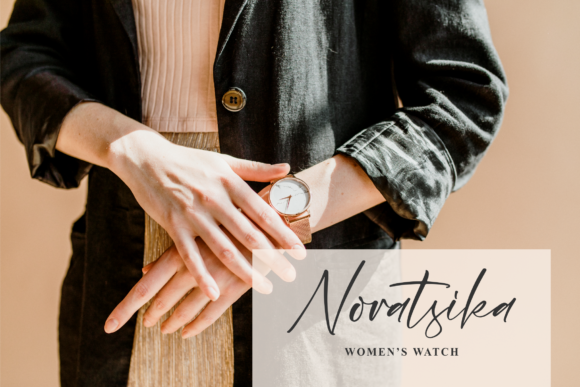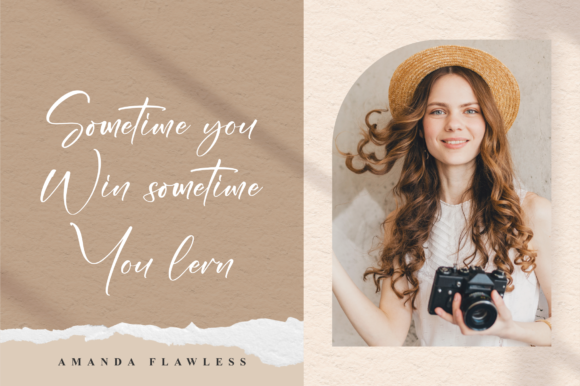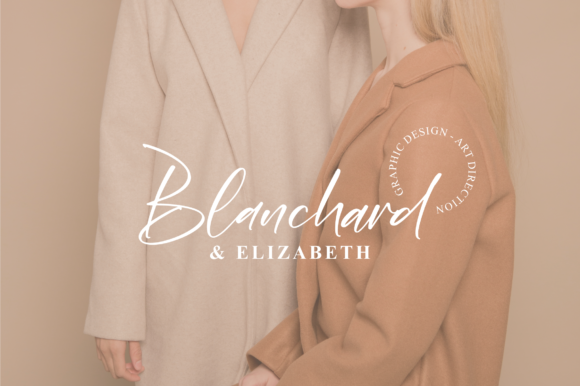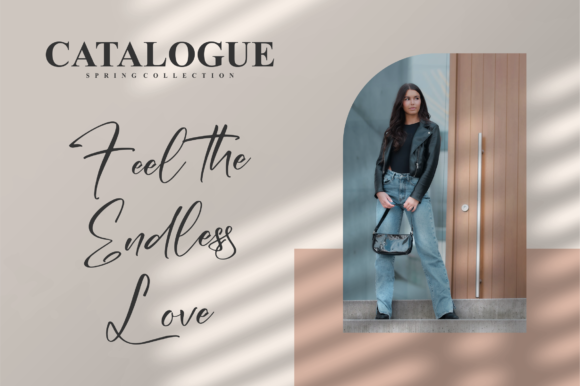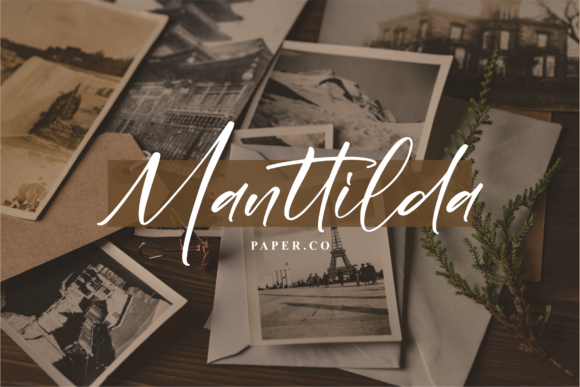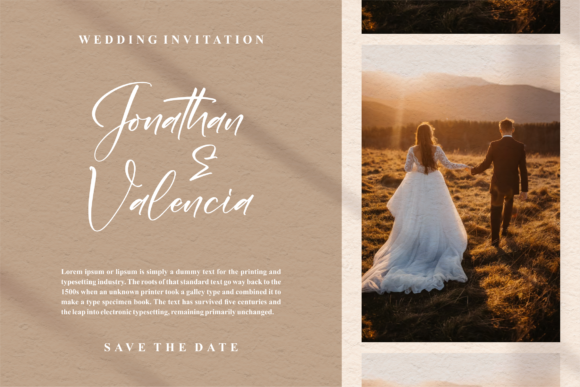
The Perfect Script: Unleashing the Power of Aghnisty Font
Have you ever stared at a blank canvas, feeling the urge to create something beautiful and unique? The blank page can be both a blessing and a curse, but it’s in these moments that our imagination runs wild, and our creativity soars. For designers, the search for the perfect font can be a daunting task, but what if you stumbled upon one that makes your projects truly stand out?
Enter Aghnisty Font, a trendy script font designed to elevate your designs and leave a lasting impression. Suitable for logos, branding projects, homeware designs, and more, Aghnisty Font is the perfect addition to any creative project. With its PUA encoded glyphs and swashes, you can unlock a world of possibilities and add a touch of elegance to your work. Whether you’re a seasoned designer or just starting out, Aghnisty Font is a valuable tool that’s sure to take your projects to the next level.
Aghnisty Font Key Features
- Unique Characteristics: Aghnisty Font features a unique, handwritten style with a mix of elegant and rustic elements, making it perfect for creative and artistic projects.
- Character Set: The font includes a wide range of characters, including Latin, Cyrillic, and Greek alphabets, as well as punctuation and special characters.
- Font Style: The font has a calligraphic feel, with fluid connections between letters and a mix of rounded and pointed shapes, creating a beautiful, handwritten look.
Aghnisty Font Review
I recently had the chance to work with the Aghnisty font, and I must say it’s an interesting choice. ✨ One of the things that really stands out is the unique blend of modern and vintage elements in the design. The font’s eclectic feel can add a touch of sophistication to any project.
Another aspect that I appreciate is the font’s versatility. ✨ It can be used in a wide range of contexts, from headlines to body text, and still maintain its visual appeal. The font’s bold weight is particularly striking, making it perfect for titles and headings.
- ⚠️ The font’s readability can be affected by the size and spacing of the text. At smaller sizes, the font’s intricacies can become difficult to distinguish, making it hard to read.
- ⚠️ The font’s italic and bold styles can sometimes feel inconsistent, which may be a concern for designers who value precision in their typography.
Overall, I think the Aghnisty font is a solid choice for designers who want to add a touch of uniqueness to their projects. However, it may not be the best fit for projects that require a high level of readability or precision in typography. With some careful consideration of the font’s limitations, it can be a great addition to any designer’s toolkit.
The Aghnisty font is ideal for modern branding, digital signage, and creative projects. Its unique style makes it perfect for adding a touch of sophistication to your designs. You can use it for headings, titles, or as a primary font for a bold and eye-catching look.